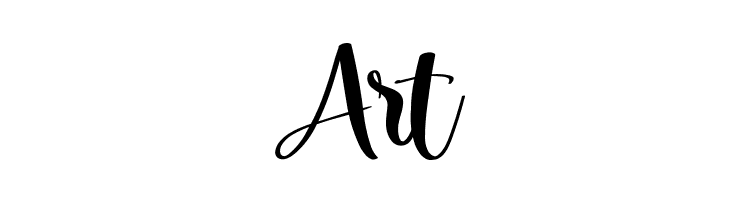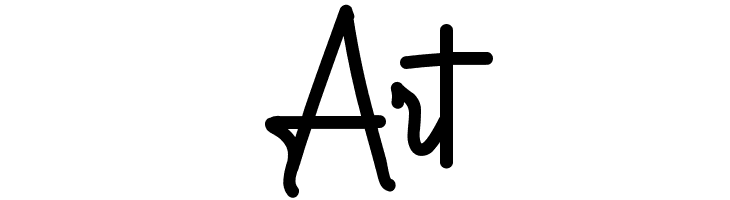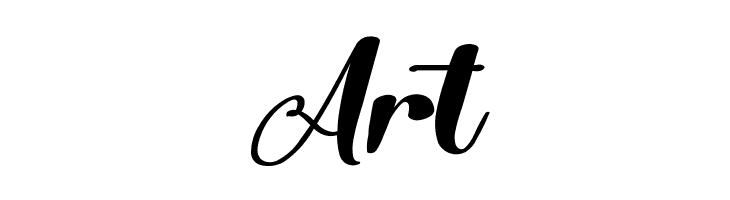
A bold, tribal-inspired font with sharp, angular edges and brush-like patterns.
An elegant script font with intricate swashes and flowing lines.
A modern, high-contrast font with elegant, elongated letterforms and decorative flourishes.
A modern font with high contrast and elegant, angular serifs.
A bold, classic serif font with strong, authoritative characters.
A flowing, cursive script with elegant loops and dynamic contrast.
A playful, modern font with bold curves and consistent stroke width.
A playful, whimsical script font with a handwritten style.
A playful, rounded font with smooth curves and a friendly appearance.
A sophisticated cursive font with elegant, flowing strokes and decorative flourishes.